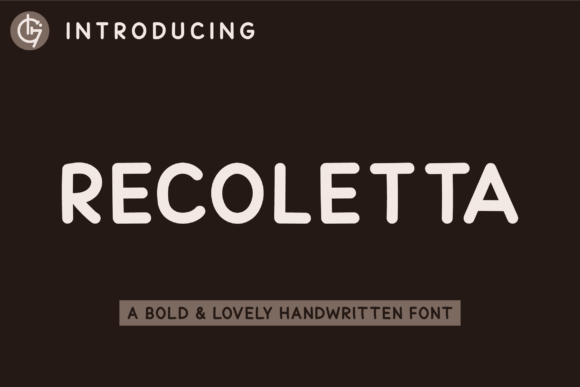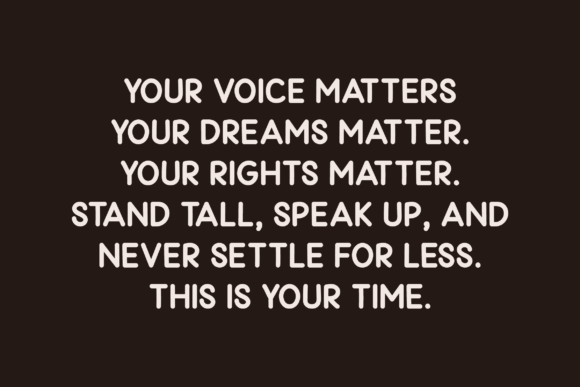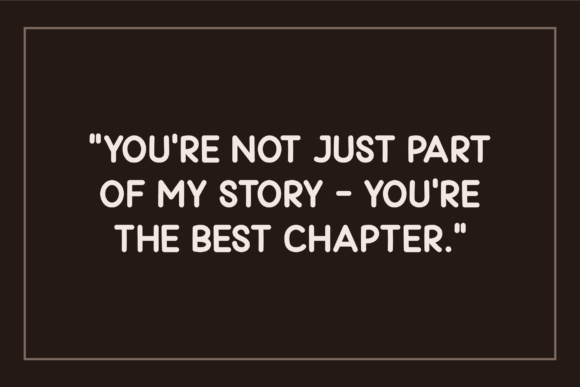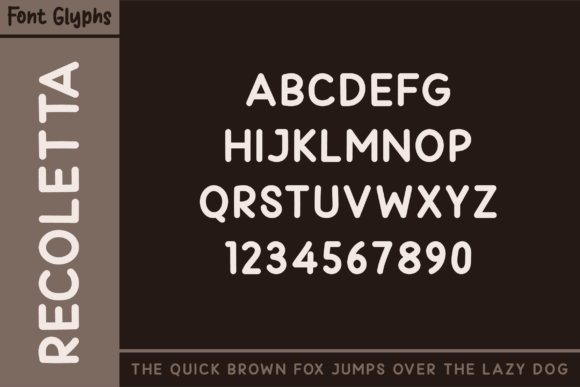
Recoletta Font: A Bold All Caps Font for Social Media & DIY Projects!
About the Recoletta Font
Elevate your designs with Recoletta Font, a font that combines sophistication with readability. Recoletta is a quirky all caps font made up of capital letters A-Z, numbers 0-9, accented characters and punctuation. This font is perfect for social media or crafty projects. Simple and smooth perfect for crafting, t-shirts, decals, cards, invitations and so much more.
Recoletta’s quirky, all-caps style shines in headlines, short slogans, and branding elements where its playful energy can be fully expressed. It works well for packaging, posters, and social media graphics, adding a touch of handcrafted charm. However, its limited character set and all-caps nature make it unsuitable for body text or lengthy passages. Avoid using it in UI contexts requiring high readability.
Its bold yet approachable personality pairs well with clean sans-serif fonts like Open Sans or Lato for a balanced contrast, or a more elegant serif such as Merriweather for a sophisticated feel. For a playful combination, consider pairing it with a handwritten script like Pacifico.
Recoletta’s overall mood is friendly and approachable, making it ideal for brands targeting a youthful or creative audience. It conveys a sense of handmade authenticity and casual sophistication.
Recoletta Font Usage Examples
Recoletta Font Example